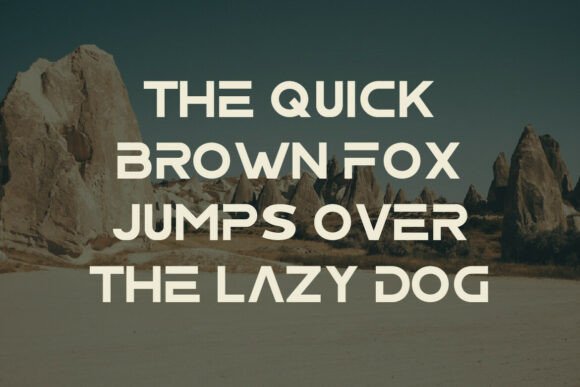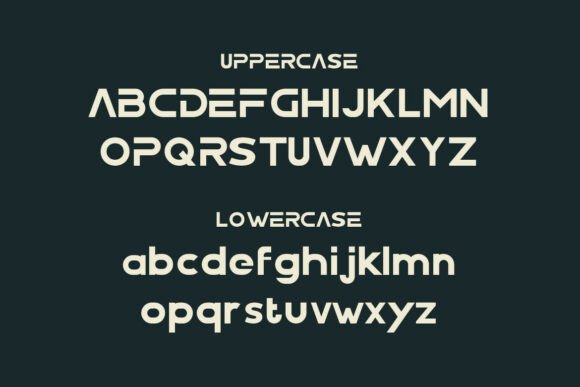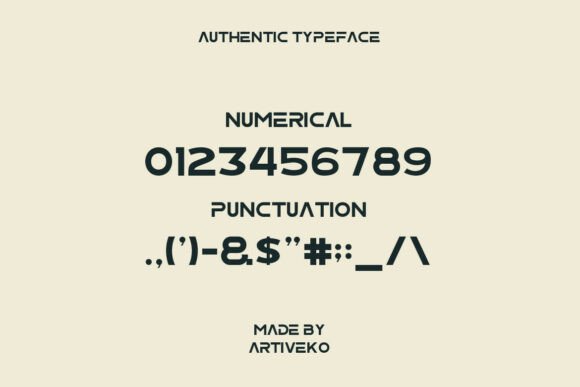
Introduction to Mandtown Font
Have you ever stared at a blank canvas, wondering where to start on your next creative project? For designers, finding the perfect font can be a game-changer. The right typography can elevate your message, capture your audience’s attention, and leave a lasting impression. That’s where the Mandtown Font comes in – a bold, modern sans serif font designed to stand out in a crowded digital landscape.
With its sturdy letterforms, tight spacing, and clean structure, the Mandtown Font is perfect for branding, streetwear designs, posters, album covers, editorial layouts, and digital media that need a bold, contemporary voice. Whether you’re working on a high-profile project or just need a reliable design resource, the Mandtown Font is a valuable addition to any designer’s toolkit.
Key Features of Mandtown Font
- High-quality font with a unique, creative design perfect for various projects, including graphic design and digital art.
- Unique characteristics include a bold, modern aesthetic and a wide range of glyphs, making it an excellent choice for creative projects.
- Designed to be a versatile design resource, suitable for various applications, including logos, typography, and branding materials.
Honest Review: Mandtown Font
As a designer, I’m always on the lookout for high-quality design resources to elevate my creative projects. The Mandtown Font caught my eye, and I decided to give it a try.
What works well: ✨ The Mandtown Font has a unique, quirky aesthetic that’s perfect for adding a touch of personality to your designs. It’s also incredibly versatile, making it suitable for a wide range of creative projects. The font is well-designed and highly customizable, allowing you to fine-tune the look to suit your needs.
Some limitations: ⚠️ One potential drawback is that the font’s transparent background can sometimes make it difficult to read, especially against dark or busy backgrounds. Additionally, the font’s quirky nature may not be to everyone’s taste.
Overall, I’d say the Mandtown Font is a solid addition to any designer’s toolkit. While it may have some limitations, its unique aesthetic and high quality make it a valuable resource for anyone looking to add some personality to their designs. Plus, it’s available for free download, making it an excellent choice for designers on a budget.
- Unique, quirky aesthetic
- Well-designed
The Mandtown Font is ideal for creative projects that require a unique and eye-catching font.
Compared to Mandtown Font, Alegreya Sans has a more minimalist design, making it suitable for projects that require a clean and simple aesthetic. It lacks the bold, dramatic feel of Mandtown Font, but excels in providing a modern and sophisticated look.